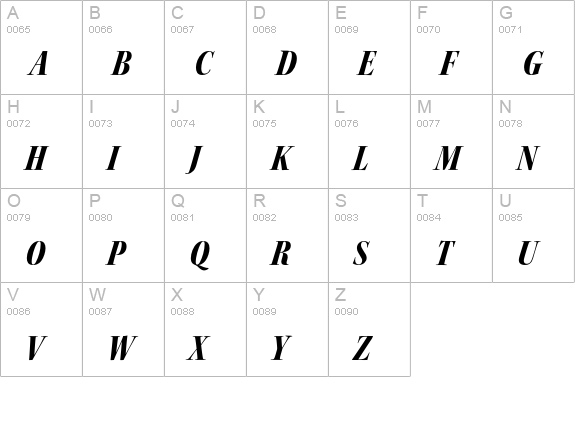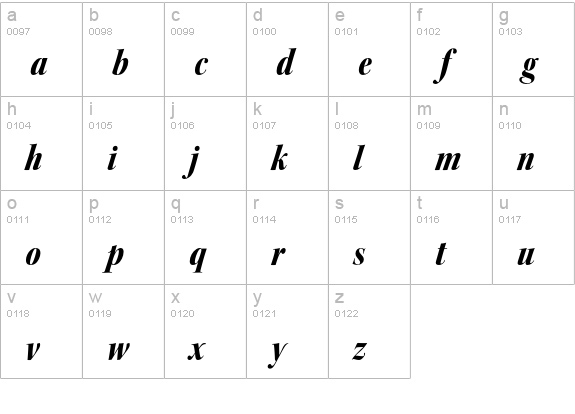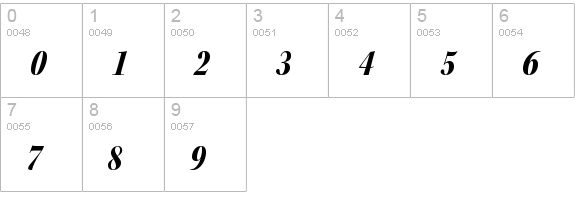
Kepler Std Black Condensed Italic Display Font Details
Kepler Std Black Condensed Italic Display is a maximum-weight, dramatic, condensed-width, italic variant in the Kepler typeface family \xE2\x80\x94 well suited to maximum-impact headlines, posters, and packaging.
Introducing Kepler Std Black Condensed Italic Display font, a stunning and bold typeface that exudes elegance and sophistication. This font is perfect for creating eye-catching headlines, striking display designs, and impactful branding materials. Kepler Std Black Condensed Italic Display font boasts a unique and captivating style, with its condensed letterforms that command attention and make a powerful statement. The italicized slant adds a touch of dynamism and flair, making it perfect for adding emphasis and creating a sense of movement in your designs. Featuring a generous x-height and well-defined curves, this font ensures excellent legibility even at smaller sizes. The bold weight of Kepler Std Black Condensed Italic Display font gives it a commanding presence, making it a versatile choice for a wide range of design projects. And the best part? Kepler Std Black Condensed Italic Display font is available for free! You can easily download this incredible font at FontsMarket.com. Whether you're a designer, a creative professional, or simply someone who appreciates the power of typography, this font is a must-have addition to your collection. So why wait? Download Kepler Std Black Condensed Italic Display font today and unleash your creativity with its bold and captivating style. Don't miss out on this amazing opportunity to elevate your designs with a font that truly stands out. Get your hands on Kepler Std Black Condensed Italic Display font now and experience the power of free, high-quality typography.